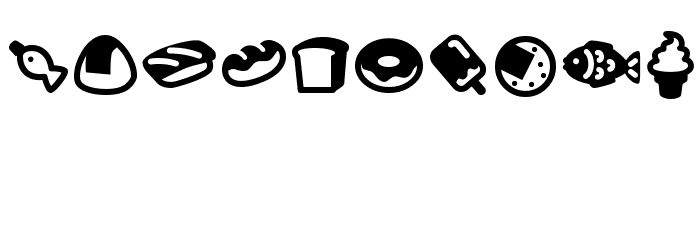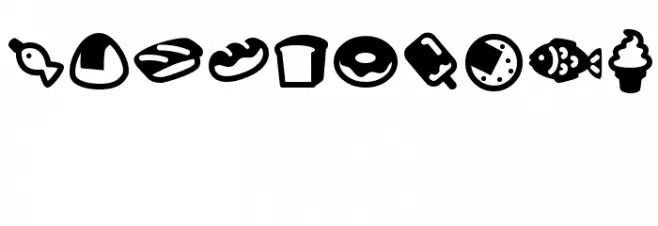
Efoodde Font
Efoodde Description
A playful and bold decorative font featuring stylized food-themed icons as characters, with thick strokes and rounded shapes that create a friendly and approachable appearance.
Bold, playful icon-based font with food motifs from Uncategorized fonts.
- Proposed Projects: Children’s menus, food packaging, restaurant branding, playful posters, educational materials.
- Overall Style: Playful, Decorative
- Use Case: Logos, Headlines, Themed graphics